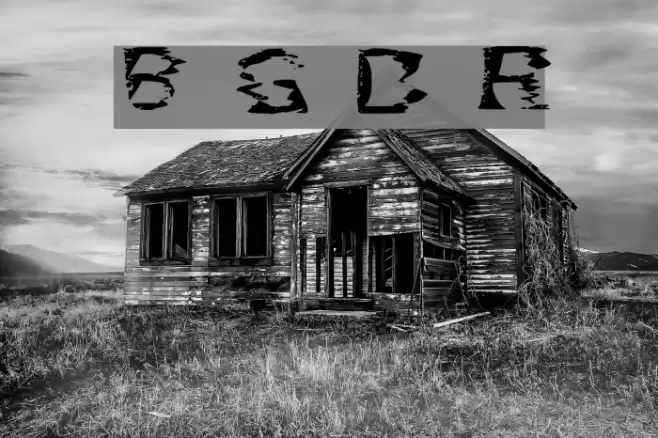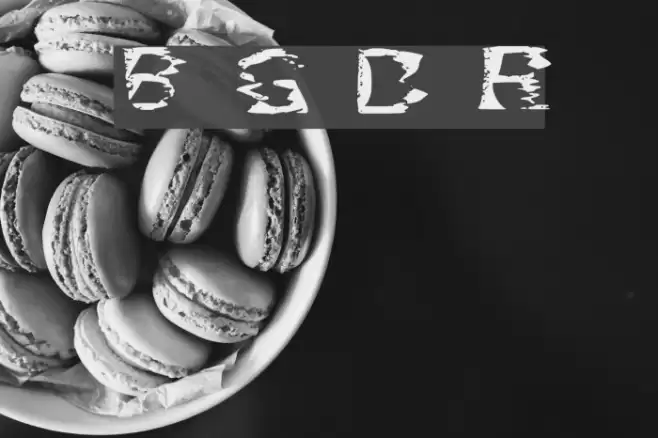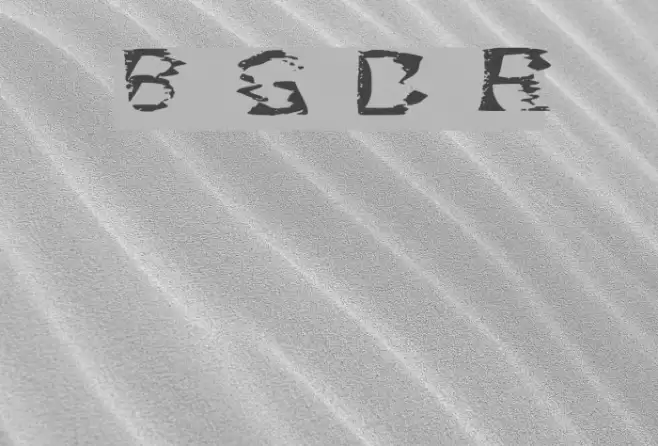
Bams Glitch Demo Regular Font
Bams Glitch Demo Regular Description
This font features a unique glitch effect that gives each letter a distorted and fragmented appearance. The uppercase letters are bold and striking, with irregular edges that create a sense of movement and chaos. The design is reminiscent of digital errors or static interference, making it ideal for projects that require a modern, edgy aesthetic. The font's style is highly decorative, focusing on visual impact rather than readability, which makes it suitable for creative and experimental designs.
A bold, glitch-style font with a fragmented, digital appearance from Uncategorized fonts.
- Proposed Projects: Ideal for digital art, music album covers, video game graphics, and edgy branding projects.
- Use Case: Logos, Headlines, Artistic projects